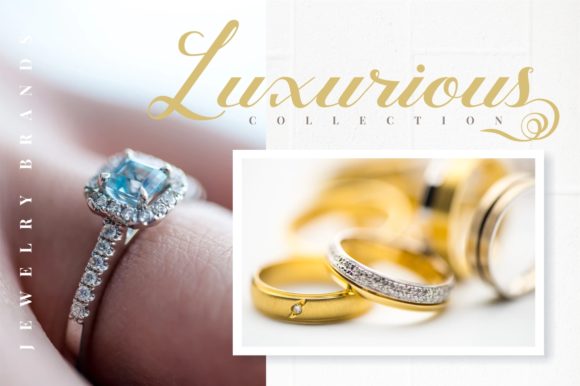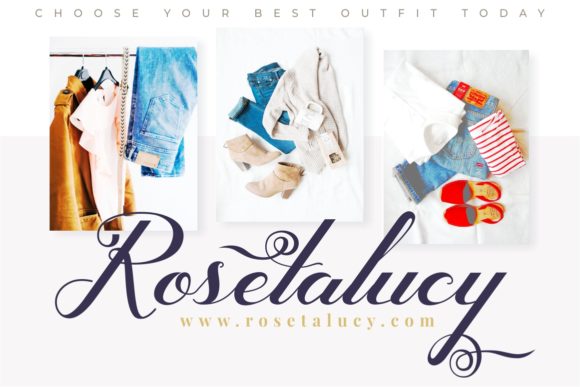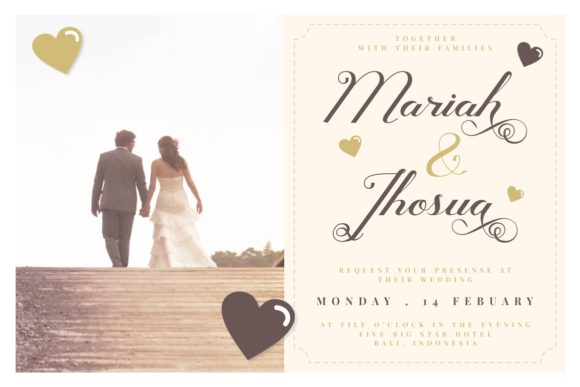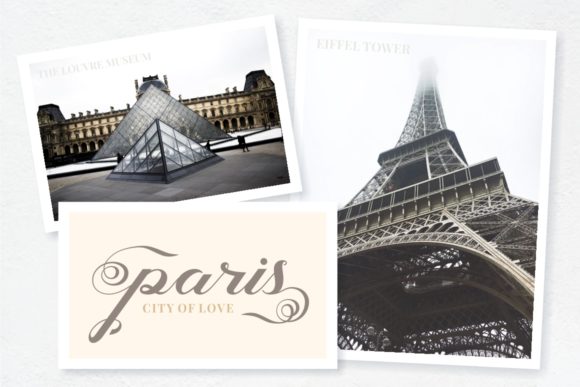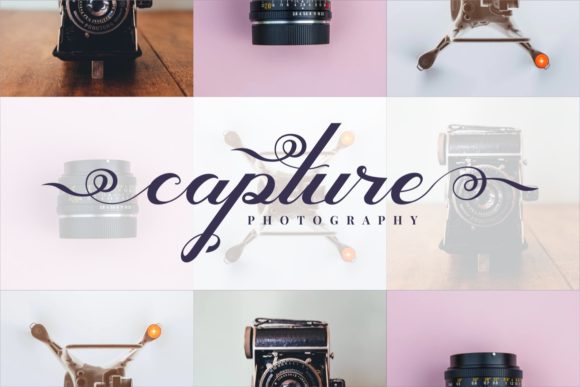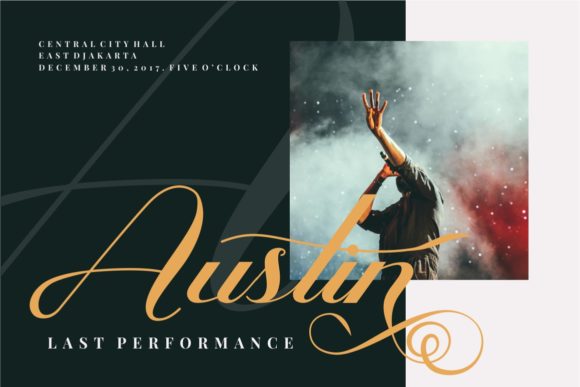
Introducing The Glamoury Font: Elevate Your Designs with Luxury and Elegance
In the world of design, typography plays a crucial role in conveying the tone and aesthetic of a project. For those seeking to add a touch of luxury, elegance, and glamour to their designs, The Glamoury font is an exceptional choice. This beautiful script font is crafted to provide a royal feel, making it perfect for a wide range of applications, from high-end branding to creative projects.
The Essence of The Glamoury Font
The Glamoury is a luxurious script font that exudes elegance and sophistication. Its intricate details and flowing lines are designed to give your designs a glamorous touch, setting them apart from the ordinary. Whether you’re working on headings, covers, invitations, labels, posters, logos, quotes, product packaging, merchandise, social media graphics, or greeting cards, The Glamoury font is versatile enough to enhance any project with its regal presence.
Key Features of The Glamoury Font
- Elegant and Royal Feel: The Glamoury font is characterized by its elegant strokes and royal appearance, making it ideal for designs that require a sophisticated look.
- Versatile Usage: From headings and titles to logos and packaging, this font can be used across various design projects to add a luxurious feel.
- Highly Readable: Despite its ornate appearance, The Glamoury font maintains high readability, ensuring your message is conveyed clearly and effectively.
- Customizable: As a digital font, The Glamoury can be scaled, colored, and manipulated to fit your design needs, offering flexibility and creativity.
Applications of The Glamoury Font
The versatility of The Glamoury font makes it suitable for a myriad of design applications:
- Headings and Titles: Add a luxurious touch to your website headers, blog titles, or magazine spreads.
- Invitations and Greeting Cards: Make your invitations, thank you cards, or greeting cards stand out with a sophisticated and elegant look.
- Branding and Logos: Elevate your brand’s image with a logo that embodies luxury and elegance.
- Product Packaging: Give your product packaging a premium feel that reflects the quality of your product.
- Merchandise: From t-shirts to tote bags, The Glamoury font can add a unique and stylish element to your merchandise.
- Social Media Graphics: Stand out on social media platforms with glamorous graphics that capture attention.
Tips for Using The Glamoury Font Effectively
To maximize the impact of The Glamoury font in your designs, consider the following tips:
- Pair with Simpler Fonts: For body text or supporting information, pair The Glamoury with a simpler, sans-serif font to maintain readability and contrast.
- Experiment with Colors: While The Glamoury font looks stunning in metallic or gold tones, don’t be afraid to experiment with different colors to match your brand’s palette or project theme.
- Adjust Size and Weight: Play with the size and weight of The Glamoury font to create visual hierarchy and emphasize key messages.
The Glamoury font is a powerful tool for designers and crafters looking to infuse their projects with a sense of luxury, elegance, and glamour. Its versatility, readability, and stunning appearance make it an excellent choice for a wide range of applications. By incorporating The Glamoury into your design toolkit, you’ll be well-equipped to create visually striking and sophisticated projects that leave a lasting impression.
Whether you’re a professional designer or a DIY crafter, The Glamoury font invites you to explore new heights of creativity and style. So, why settle for ordinary when you can add a touch of glamour to your designs? Discover the possibilities with The Glamoury font today.